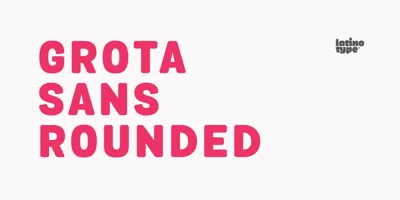
Grota Font
Grota Font is perfect for architectural firm branding, construction company logos, industrial design projects, urban development presentations, structural engineering materials, concrete product packaging, modern building signage, infrastructure project displays, civil engineering reports, and contemporary architectural publications that require strong structural character and industrial sophistication.
This font is exciting because it captures the raw strength and architectural beauty of concrete structures with bold, substantial letterforms that reflect the enduring power and modern elegance found in contemporary concrete architecture and industrial design. Grota Font features robust geometric construction and precise angles that embody the engineering excellence and structural integrity essential to modern construction and architectural innovation.
Grota Font family includes Regular, Bold, Light, Heavy, Condensed, Extended, Industrial, and Structural versions, plus architectural symbols, construction icons, engineering elements, and industrial ornaments that enhance the authentic construction aesthetic and provide comprehensive design solutions for building and infrastructure applications.
For architectural and construction design projects, Grota Font delivers unmatched structural authority and industrial credibility. The font's concrete-inspired letterforms and engineering character make it perfect for construction companies, architectural firms, and industrial brands seeking to communicate strength, reliability, and technical expertise. Its solid design appeals to professionals who value structural integrity and engineering precision. The character set includes technical symbols and construction markers that meet industry engineering standards. Professional designers appreciate its ability to convey both strength and sophistication while maintaining excellent readability across technical documentation, architectural presentations, and construction marketing materials, making it essential for organizations that want to project engineering excellence, structural reliability, and the solid foundation of trust that defines successful construction and architectural projects.